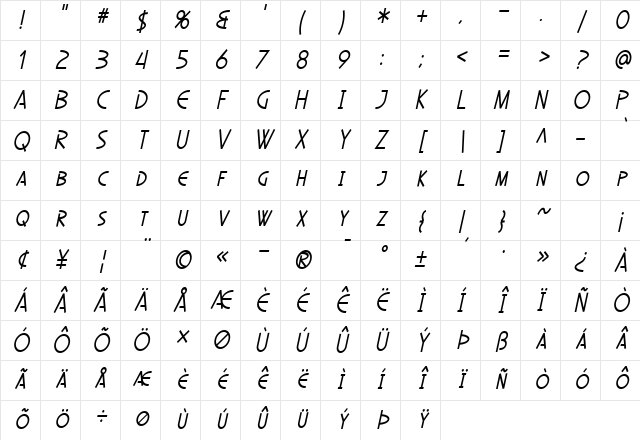
Complete SF Diego Sans Condensed Oblique glyph index. Displaying only characters natively supported by SF Diego Sans Condensed Oblique font.
SF Diego Sans Condensed is a composed and adaptable typeface that performs quietly and consistently across a wide range of design contexts. The slanted form adds forward momentum and visual energy. Its narrow stance lets it pack a punch even in space-constrained designs.
Pro Tip: Use SF Diego Sans Condensed for emphasis, pull quotes, and subheadings where its slanted energy can add rhythm to the layout.